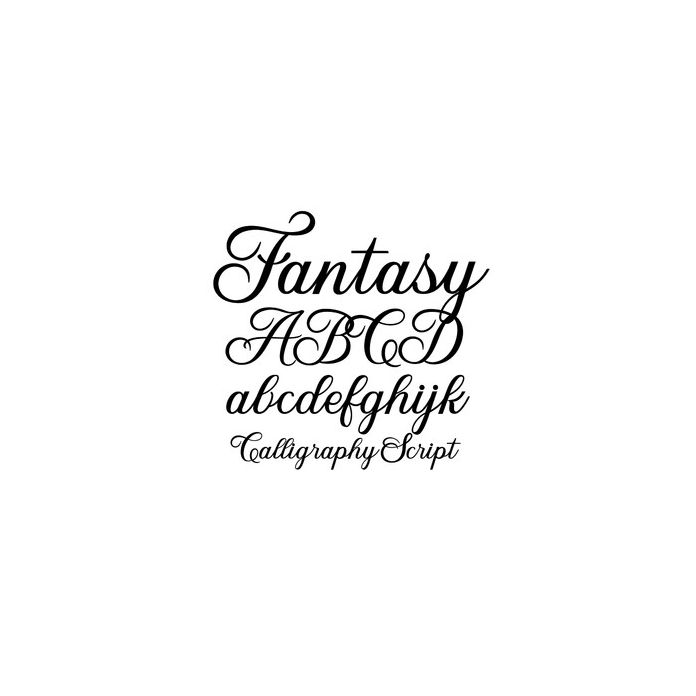
BFC Fantasy Elegant Calligraphy Fancy Script Font
Fantasy is a classic calligraphy script font. This font is perfect for weddings and other fancy occasions.